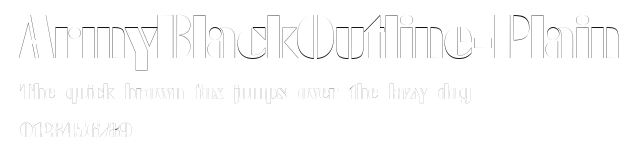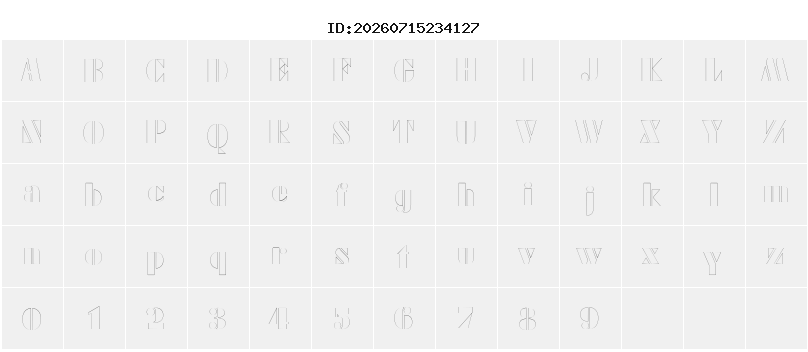
ArmyBlackOutline-Plain Preview
• Font Name: ArmyBlackOutline-Plain
• Full Font Name: ArmyBlackOutline-Plain
• Manufacturer: - Swfte International
About ArmyBlackOutline-Plain.ttf
ArmyBlackOutline-Plain.ttf is a modern, elegant sans-serif font designed for ultimate readability and visual harmony. Perfect for branding, headlines, web design, and print materials.